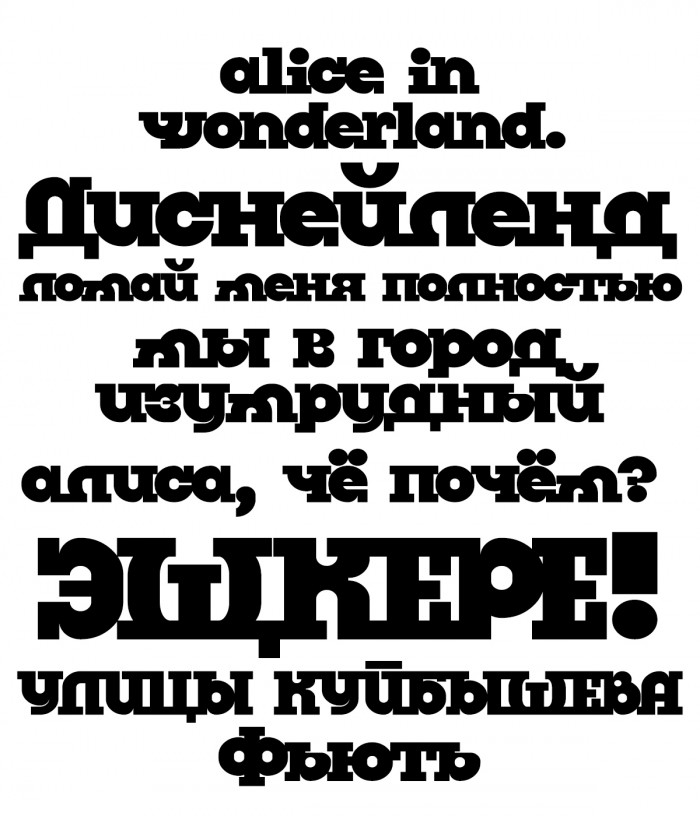
Nice one, but Isn't spacing a little tight?
the de is nice
Wow ) I can barely create Cyrillics for my own font, but for someone else's, it's almost impossible for me. You though are really nailing it. Keep it up!